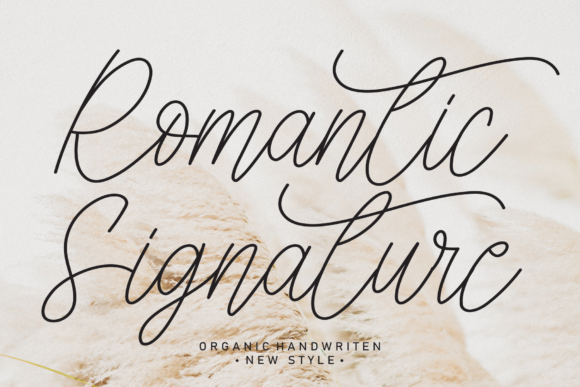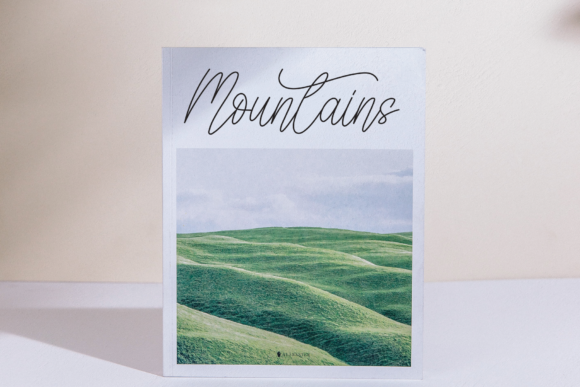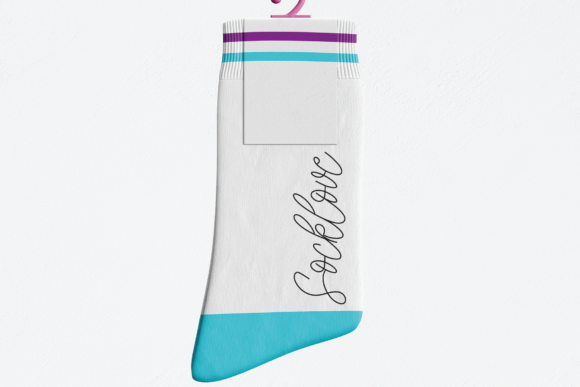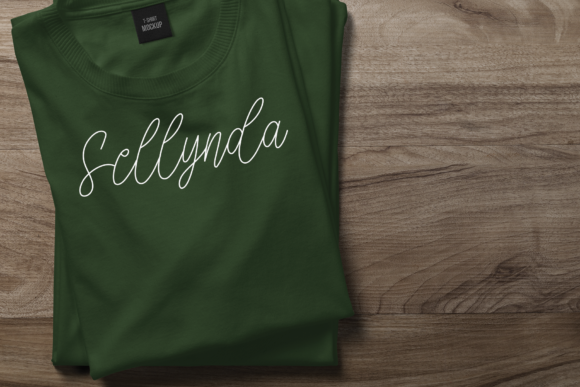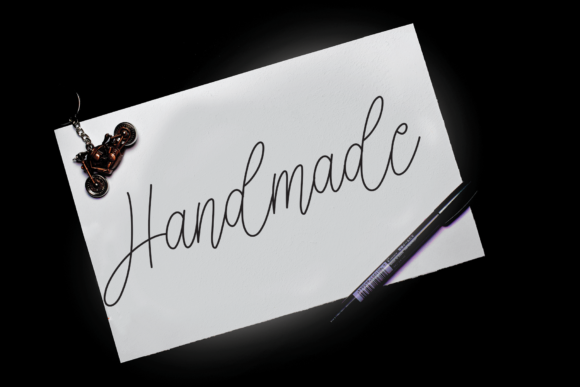
Romantic Signature Font
About Romantic Signature Font
Romantic Signature is a thin lettered, delicate and stylish handwritten font. It is defined by smooth curves and is perfect for fashion branding or editorial designs. Add it confidently to your projects, and you will love the results.